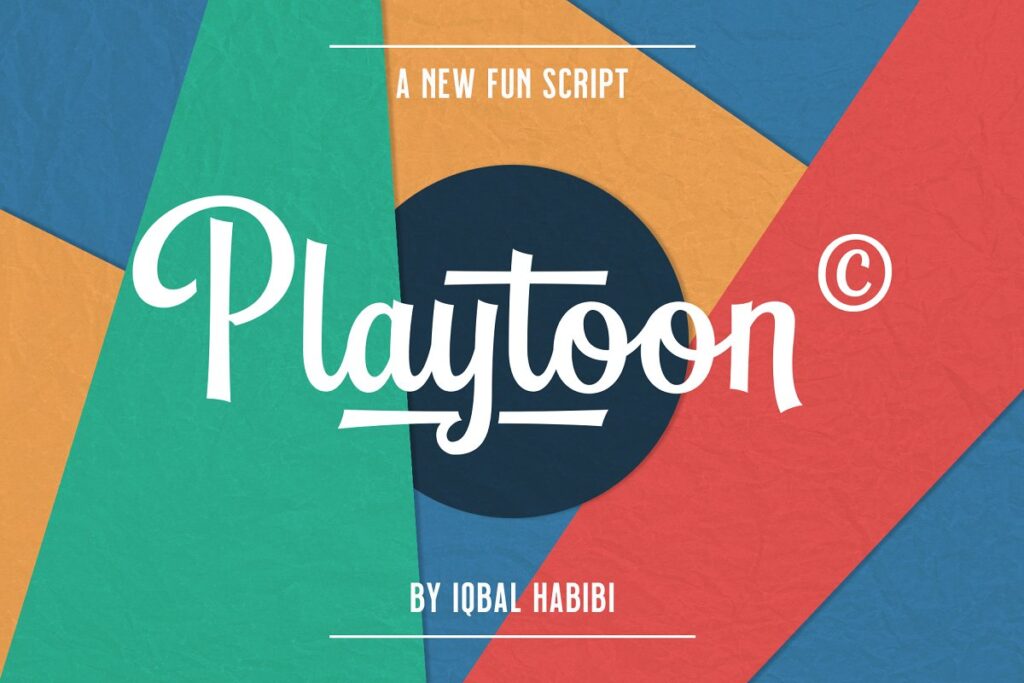
Playtoon is a fun script inspired by brush script font. Playtoon has many alternative characters and ligatures. Great for creating lettering works, logotype, t-shirt design, packaging design, signboard, poster, and many more. Playtoon will give your design works more fun and cool.